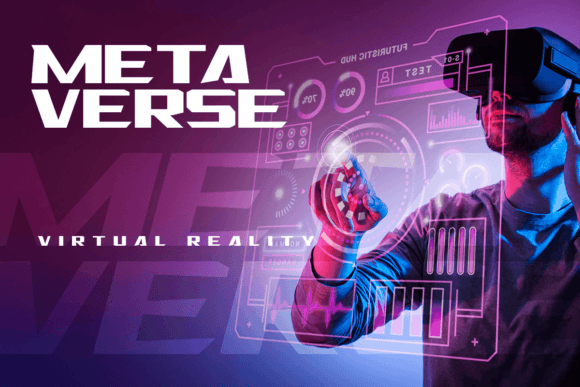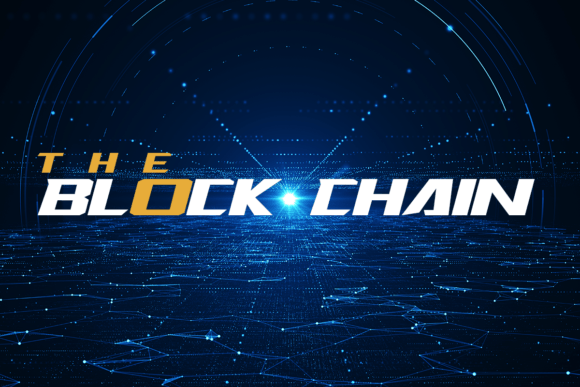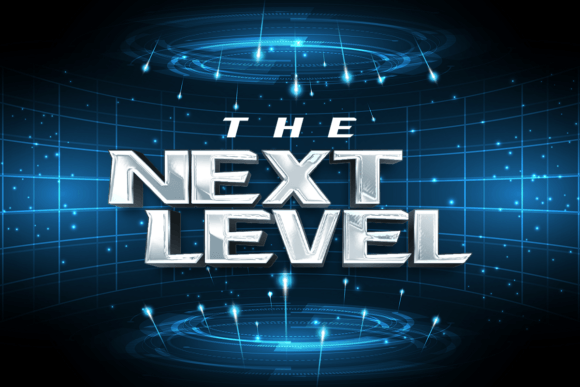
Introduction to Octage Font
As a designer, you’ve probably been there – staring at a blank canvas, struggling to find the perfect font to bring your creative project to life. It’s a moment that can be both thrilling and frustrating, but what if I told you that there’s a font that could change everything? Introducing the Octage Font, a game-changing design resource that’s about to revolutionize the way you approach typography.
With its unique letterforms and minimalist style, the Octage Font is the perfect choice for designers who want to add a touch of sci-fi or technology to their work. Whether you’re creating a logo, label, poster, or packaging design, this font is sure to make a statement. And the best part? It’s available for free download, making it a high-quality resource that’s accessible to designers of all levels.
Imagine being able to add a futuristic vibe to your designs with just a few clicks – that’s what the Octage Font offers. With a transparent background and sleek, modern look, this font is the perfect way to give your designs a cutting-edge feel. So why settle for a generic font when you can have the Octage Font? Download it now and discover a whole new world of creative possibilities.
Key Features of Octage Font
- Unique, modern design with a transparent background, making it easy to overlay on any image or background
- Perfect for designers looking for a high-quality font to elevate their creative project, with a clear and legible typography
Honest Review: Octage Font
I recently had the chance to try out the Octage Font, and I must say, it’s a great addition to any designer’s toolkit. The font is perfect for a creative project that requires a unique and high-quality design resource.
What works well: ✨ The Octage Font has a transparent background, which makes it incredibly versatile and easy to use in any design scenario. It’s also available for free download, which is a major plus for designers on a budget. The font’s clean and modern design is perfect for a wide range of creative projects, from graphic design to web design.
Limitations: ⚠️ While the Octage Font is a great choice for many design projects, it may not be suitable for projects that require a bold or dramatic font. Additionally, some users may find the font’s modern design to be too minimalist for their taste.
Overall impression: I’m really impressed with the Octage Font. It’s a high-quality design resource that’s perfect for a wide range of creative projects. While it may have some limitations, the font’s unique design and transparent background make it a great choice for designers who want a modern and versatile font.
Octage Font
The Octage Font is a versatile design resource ideal for creative projects that require a high-quality, unique touch. Its transparent background makes it perfect for layering and blending with other design elements.
Tips for Getting the Most Out of Octage Font
For the best results, use the Octage Font in conjunction with other high-quality design elements, such as images and graphics. Experiment with different font sizes and colors to find the perfect combination for your project.
The Octage Font is perfect for creative projects, such as:
- Presentations
- Documents
- Posters
- Brochures
Alternatives to Octage Font
Futura Condensed Extra Bold
Futura Condensed Extra Bold is a high-quality sans-serif font ideal for creative projects that require a bold, modern look. It features a transparent background, making it perfect for use on product packaging, advertisements, and other design resources. Use it when you need to convey a sense of energy and dynamism in your design. Compared to Octage Font, Futura Condensed Extra Bold is more geometric and modern, making it suitable for contemporary designs.